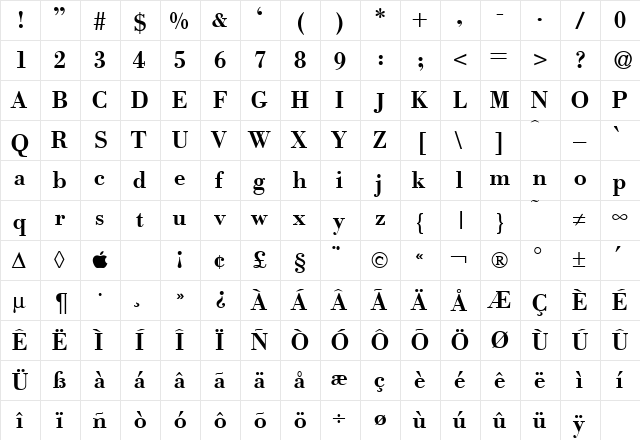
ModernBodoni Bold
Design Context for ModernBodoni Typeface
ModernBodoni is a composed and adaptable typeface that performs quietly and consistently across a wide range of design contexts. The heavy weight commands attention and anchors typographic hierarchies.